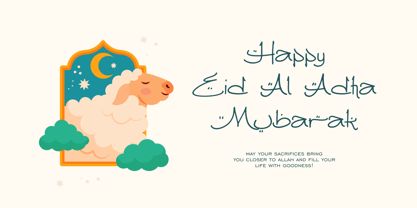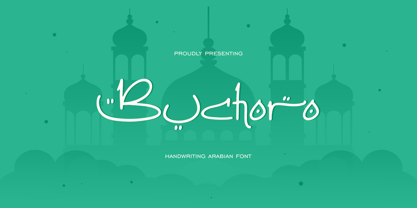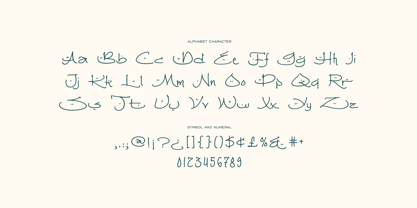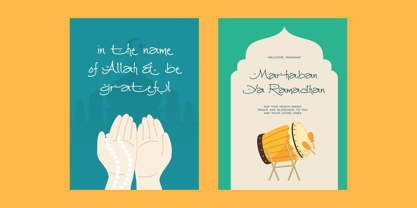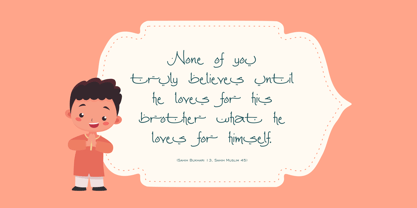
Buchoro
La familia tipográfica Buchoro fue diseñada por Satia Hayu Prabowo y publicada por Runsell Type. Buchoro contiene 1 estilos.
Buchoro is a beautiful blend of traditional calligraphy and modern design. This font captures the fluidity and intricate elegance of Arabic writing, with graceful curves and sweeping strokes that evoke a sense of cultural sophistication. Perfect for projects that require an exotic, artistic flair, this font features soft, flowing letterforms that resemble the delicate strokes of hand-drawn Arabic scripts, while still maintaining legibility in a variety of settings. Ideal for branding, invitations, logos, and any design that needs a touch of refined elegance with an Eastern touch. Whether you're crafting a luxurious design or aiming for a unique visual style, this font adds a distinct, cultural aesthetic to your creations.